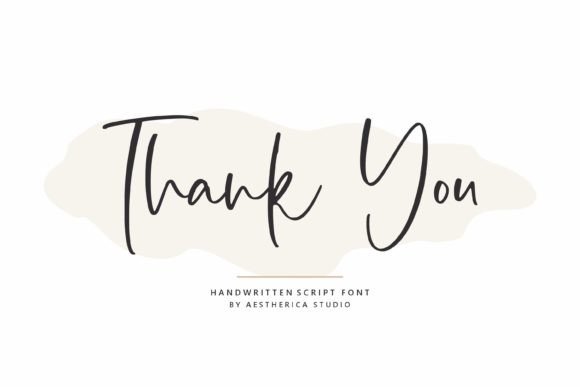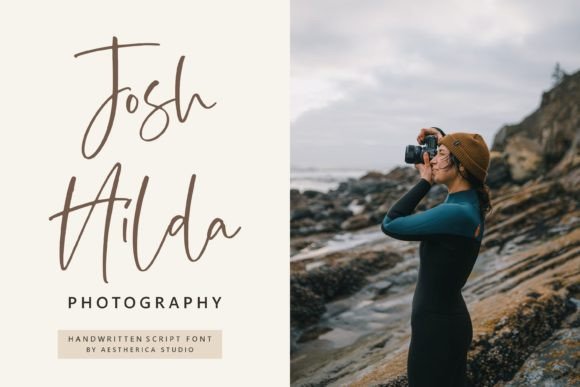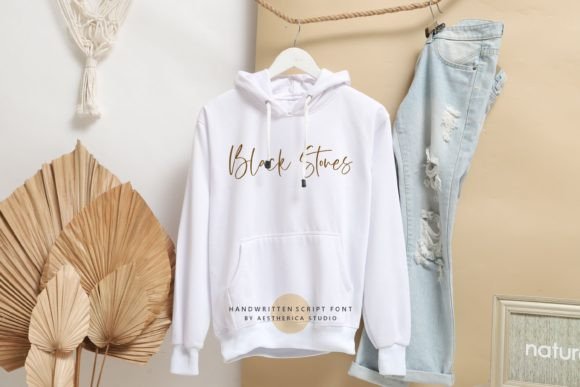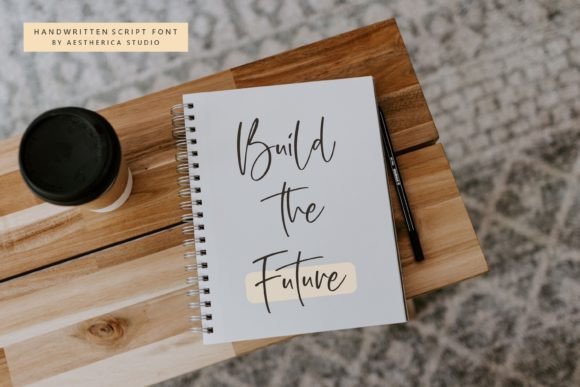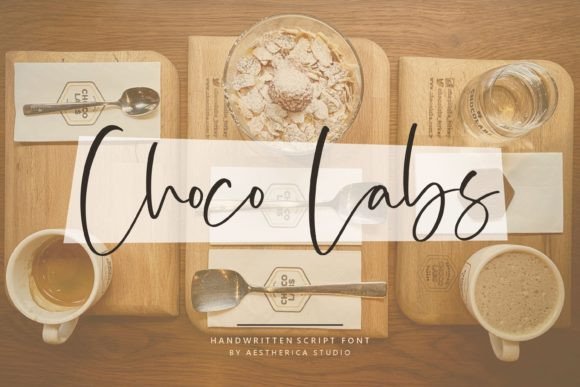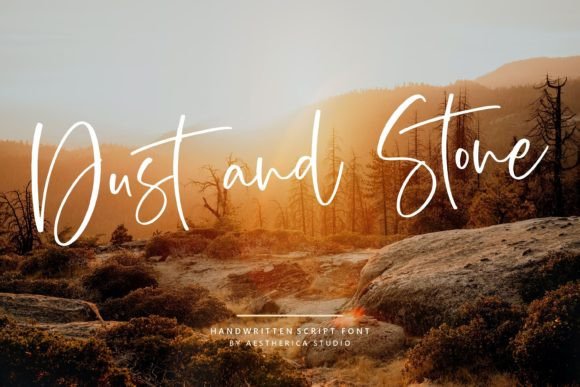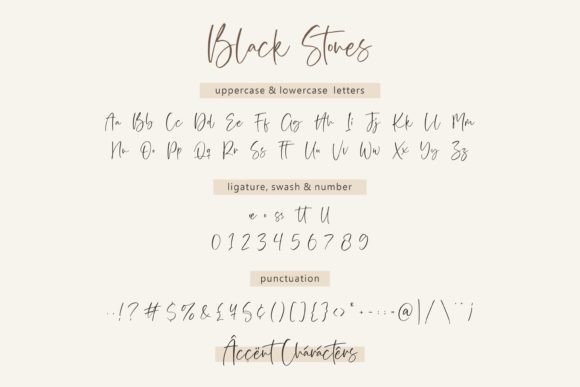
Black Stones Font
About Black Stones Font
“Black Stones” is a fashionable and cool handwritten font that stands out with its distinct and timeless style. Its unique and trendy design makes it a perfect choice for creating spectacular and eye-catching designs. Whether you’re working on fashion-related projects, branding materials, social media graphics, or any other creative endeavor, “Black Stones” adds a touch of sophistication and flair to your designs.
The font’s distinct and cool handwritten style gives your projects a modern and edgy vibe. Its fashionable appeal makes it ideal for creating visually striking and memorable designs that capture the attention of your audience. Whether you’re aiming for a sleek and minimalist look or a bold and statement-making design, “Black Stones” adapts to different design aesthetics, making it a versatile choice for various applications.
One of the key features of “Black Stones” is its timelessness. Its design transcends trends, ensuring that your designs maintain a stylish and contemporary appearance over time. The font’s versatility allows it to complement different visual styles and themes, making it a valuable asset for designers seeking a font that combines fashion and functionality.
By incorporating “Black Stones” into your projects, you’re infusing them with a touch of sophistication and coolness. Its distinct and fashionable handwritten style adds a sense of edginess, making your designs visually appealing and impactful. Whether you’re a graphic designer, a fashion enthusiast, or an individual working on personal projects, “Black Stones” provides you with a fashionable and cool font choice to create spectacular and unforgettable designs that leave a lasting impression.